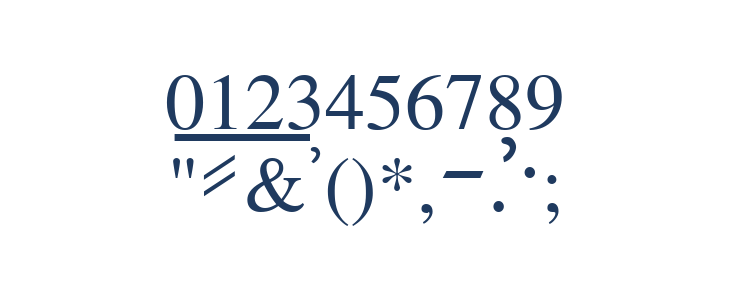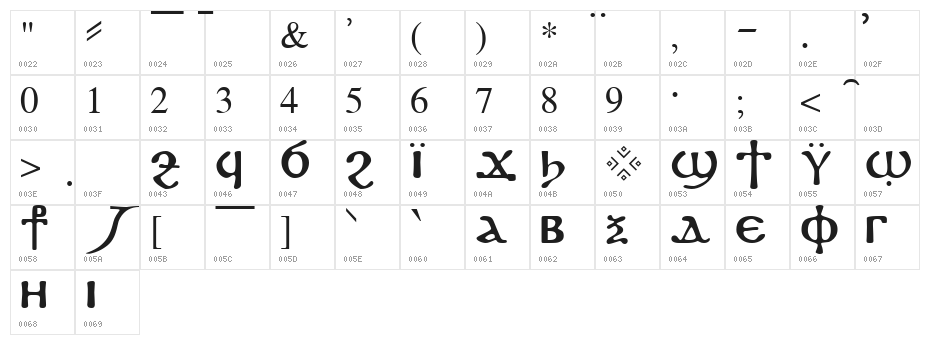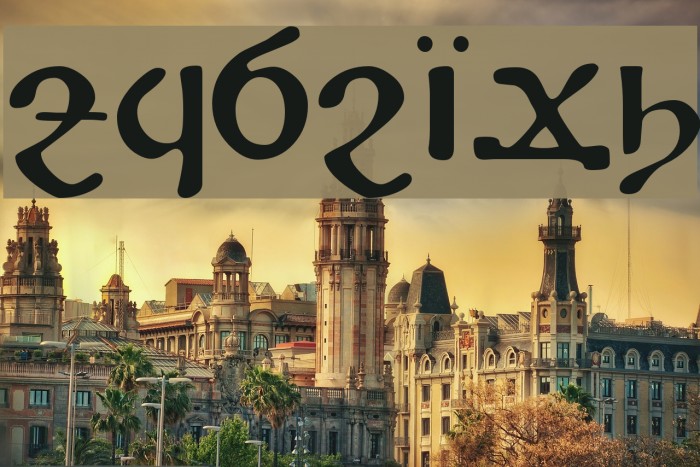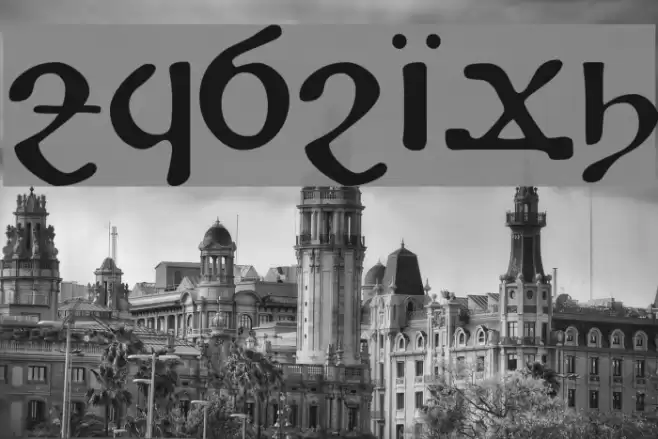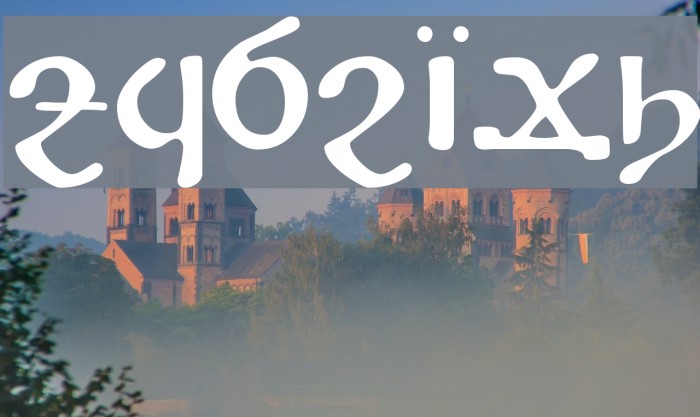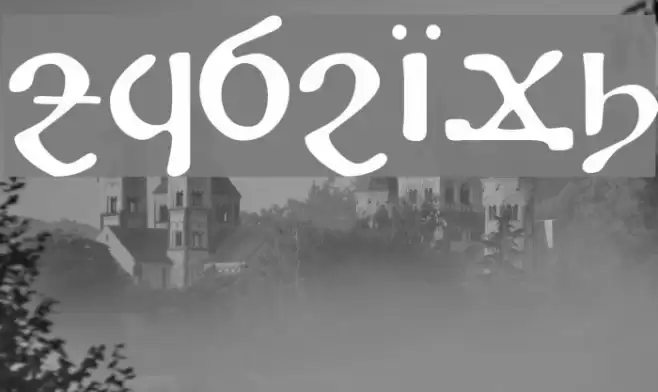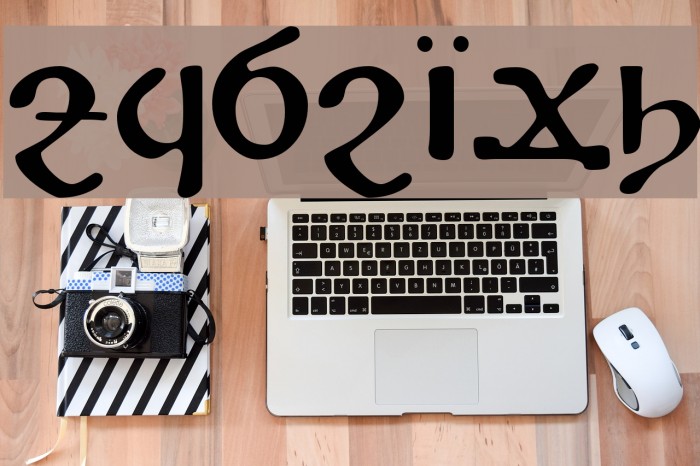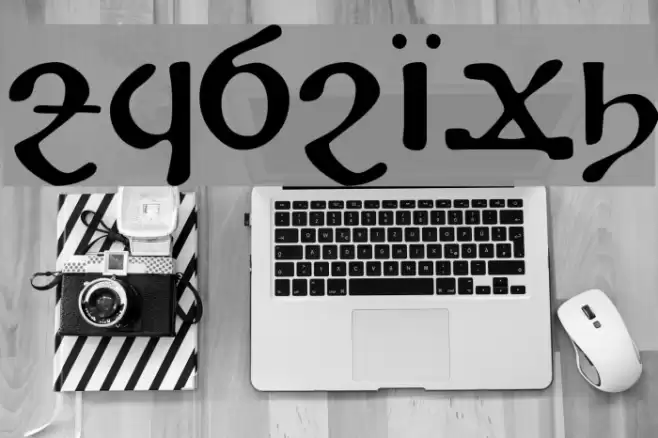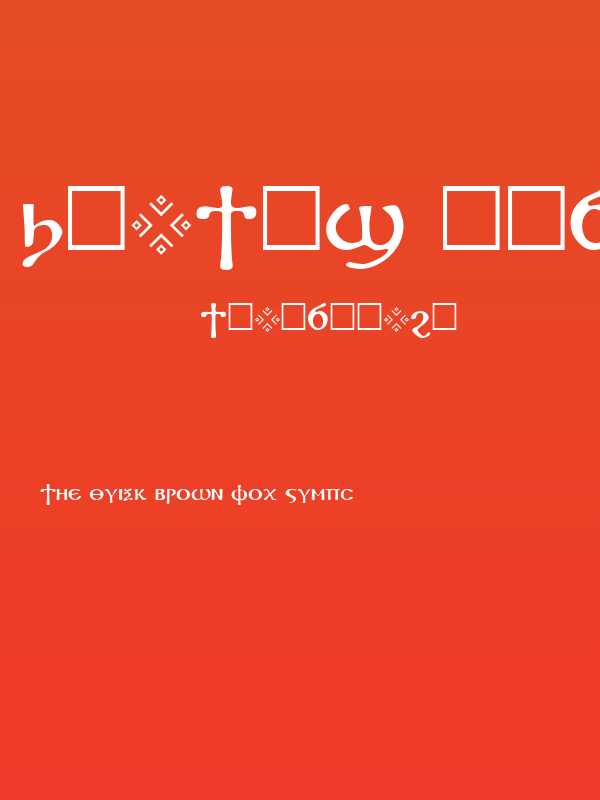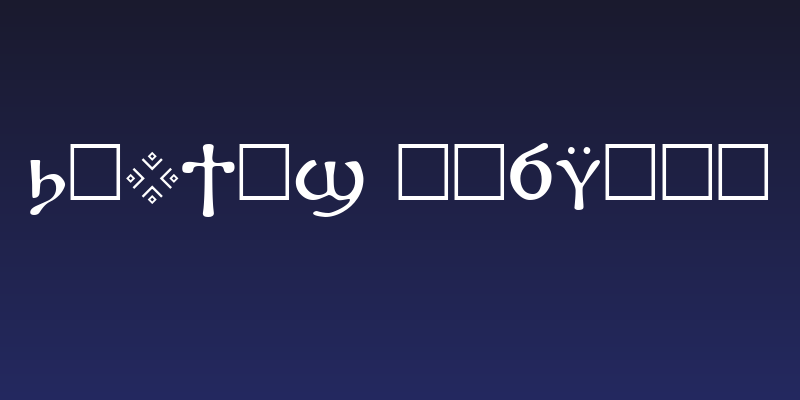
Koptos Regular Font
Koptos Regular Description
This font features a unique blend of traditional and modern elements, characterized by its bold, rounded forms and distinct serifs. The uppercase letters exhibit a strong presence with a slightly condensed appearance, while the lowercase letters maintain a harmonious flow with subtle curves. The numerals are clear and legible, with a consistent stroke width that complements the overall design. Special characters are thoughtfully integrated, enhancing the font's versatility. The font's style is both approachable and professional, making it suitable for a variety of applications.
| Proposed Projects | Ideal for branding, editorial design, and signage due to its strong presence and readability. |